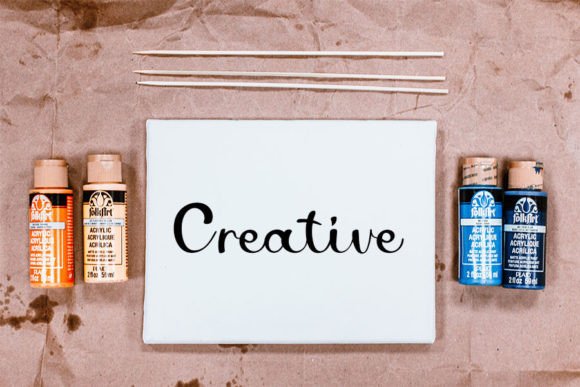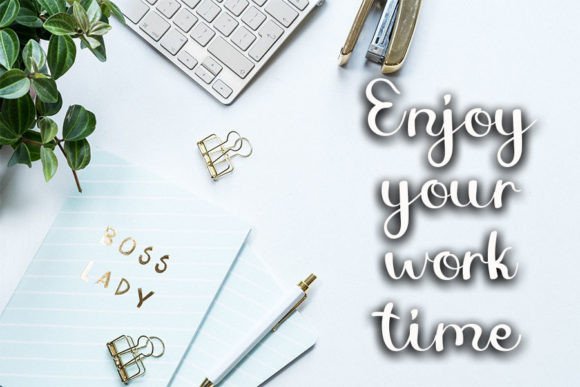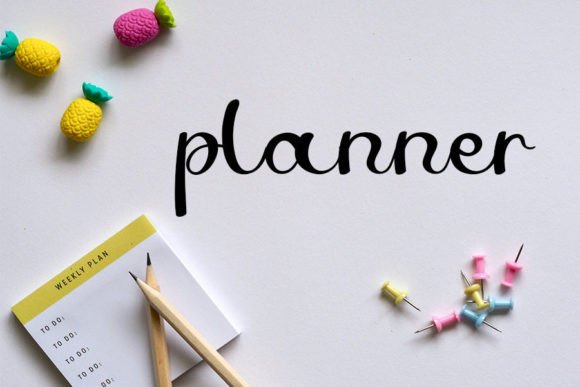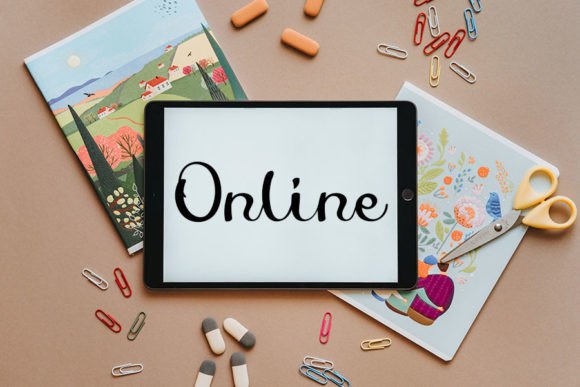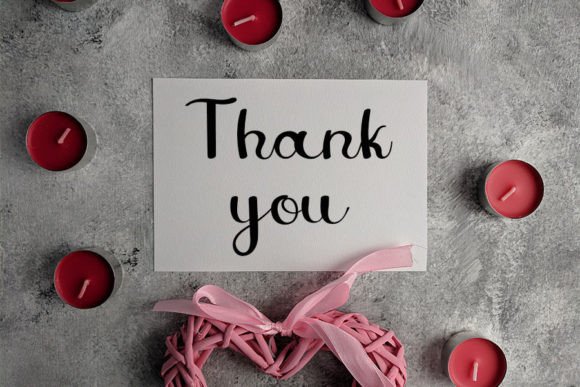
Introduction to Panigale Font
Have you ever stared at a blank page, waiting for the perfect font to spark your creativity? It’s that moment when inspiration strikes, and you envision the perfect design. For designers and crafty enthusiasts, finding the right font can make all the difference in bringing your vision to life. This is where the Panigale Font comes in – a friendly, handwritten font that exudes elegance and sophistication.
With its clean and quirky design, the Panigale Font is a valuable resource for designers, perfect for creating logos, branding, social media posts, and other creative projects. Whether you’re working on a high-quality design or need a free download for a DIY project, this font is an excellent choice. Its versatility and unique charm make it an ideal design resource for those who want to add a personal touch to their work.
Discover the beauty of the Panigale Font and elevate your design game with this beautiful, free download. Get ready to unleash your creativity and bring your ideas to life with this stunning font.
Key Features of Panigale Font
- High-quality font designed for creative projects, perfect for use in digital designs and print materials.
- Features a bold, modern design with clean lines and a sleek aesthetic, making it perfect for use in a variety of creative contexts.
- Has a large character set, including uppercase and lowercase letters, numbers, and punctuation marks, making it a versatile design resource.
Honest Review: Panigale Font
I recently had the chance to work with the Panigale Font, and I must say it’s been a game-changer for my creative project. The font is perfect for any design that requires a touch of sophistication and elegance.
- High-quality design that exudes luxury and style ✨
- Transparent background, making it easy to integrate with any design ✨
- Perfect for use in corporate branding, packaging, or any other creative project
- Only available in a few weights and styles, which may limit its versatility ⚠️
- Not ideal for use in text-heavy designs, as it may become overwhelming ⚠️
Overall, I’m thoroughly impressed with the Panigale Font. Its sleek design and high-quality feel make it a valuable addition to any design resource. If you’re looking for a font that adds a touch of sophistication to your creative project, I highly recommend giving it a try.
Introduction to Panigale Font
The Panigale Font is a high-quality, free design resource ideal for creative projects that require a sophisticated and modern touch. With its sleek and elegant design, this font is perfect for various applications, from branding and advertising to digital media and print materials.
Common Use Cases for Panigale Font
The Panigale Font is ideal for various